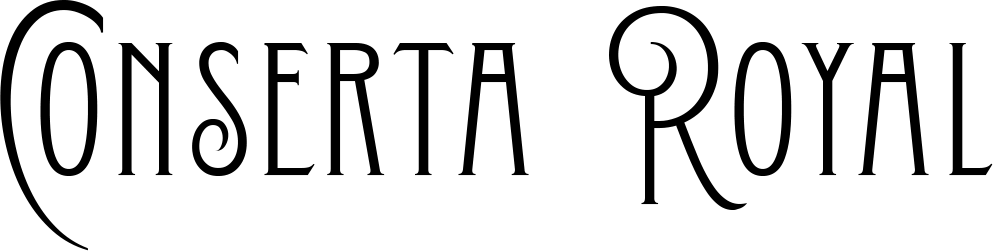
Conserta Royal Font
Conserta Royal has a vintage and outdated style. You can take this retro font as an opportunity to create various projects such as invitation cards, old-school movies, posters, etc. This font comes with both the uppercase and lowercase of the alphabet.
Inspired by the vintage label and packaging design, we do a very fun research about the typeworks in the old era. We drown too deep in every single reference that we found. Super mesmerized with how each letters flow so uniquely in every brand’s packaging display.
We sum up every idea, build the characters one by one, carefully crafting in every single click, till the day that we’ve been waiting for finally come.
Proudly present, CONSERTA. A beautiful vintage display serif typeface. Packed up with a bunch of features like Stylistic Alternates, Ligatures, and Old Style Numbering, To expand the flow and characteristic in every single letters. Perfectly fit for any of your vintage touch of branding and visual content.